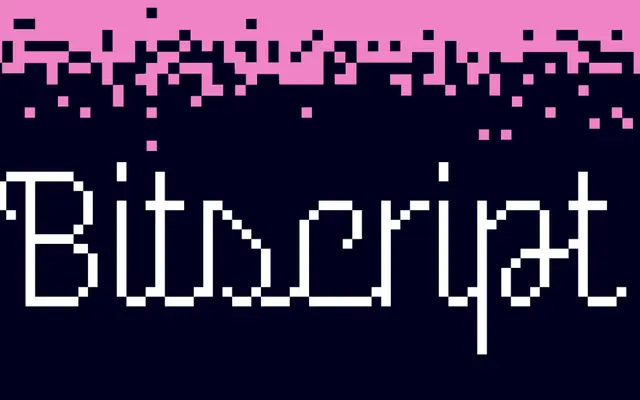
A single-weight script typeface from Indian Type Foundry, positioned alongside brush and handwritten display faces in their catalogue.
Available in one weight, Bitscript sits in ITF's script category alongside brush-style faces such as Brushware. With a single Regular style, it is suited to display and short-form use where an informal handwritten character is needed. The limited weight range keeps it focused as a display tool rather than a workhorse text family.
ITF classifies this as a Script font; the name and related fonts suggest a brush or informal handwritten style typical of display script typefaces.